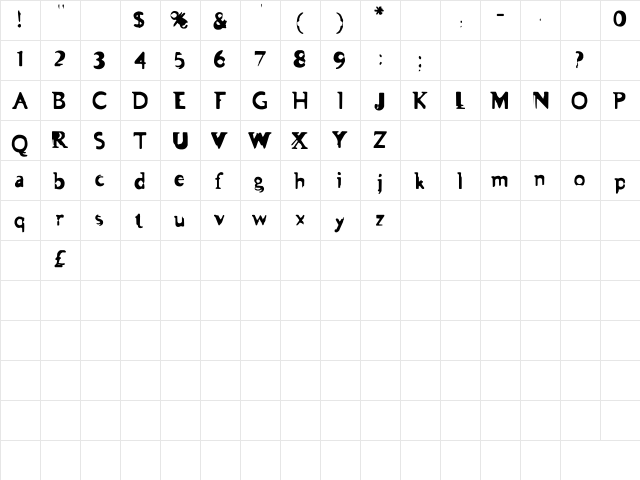
Asman Regular
Design Context for Asman Typeface
Asman is a composed and adaptable typeface that performs quietly and consistently across a wide range of design contexts.